Holiday Font Bundle
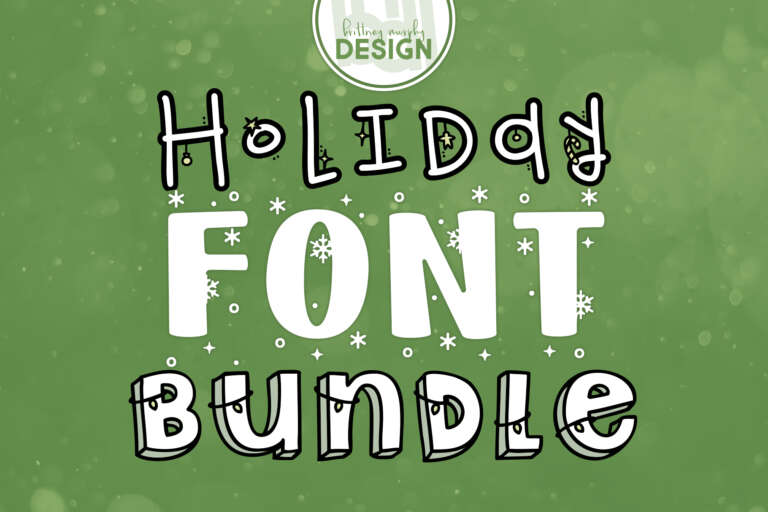
About The Holiday Font Bundle
- Christmas Tree Lights
- Holiday Snowflakes
- Christmas Tree Ornaments
- Christmas Sprouts
What Can you Create?
Perfect for holiday cards or invitations! A Christmas tree illustration replaces the ‘#’ character in this font, so you can use it in your graphics for some extra holiday cheer!